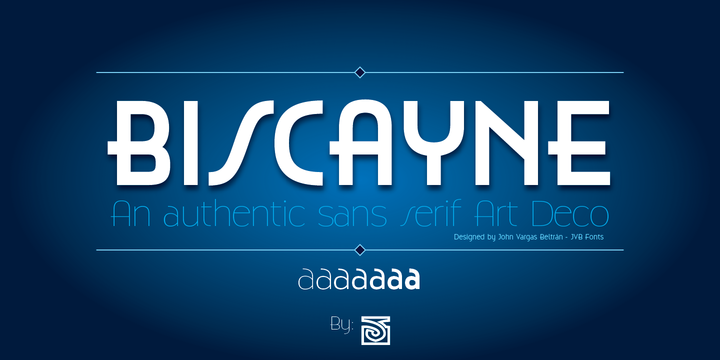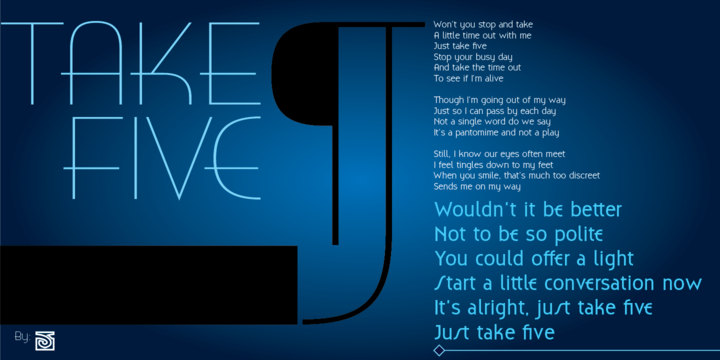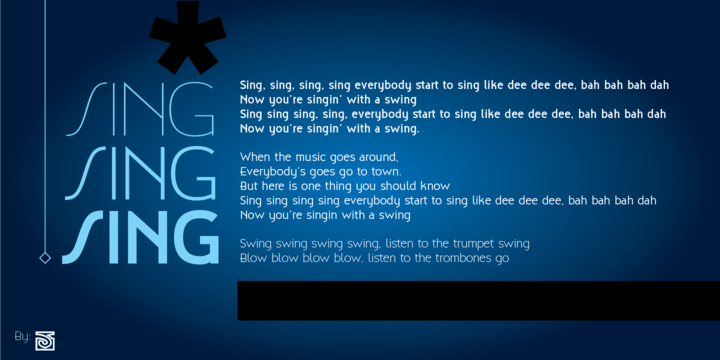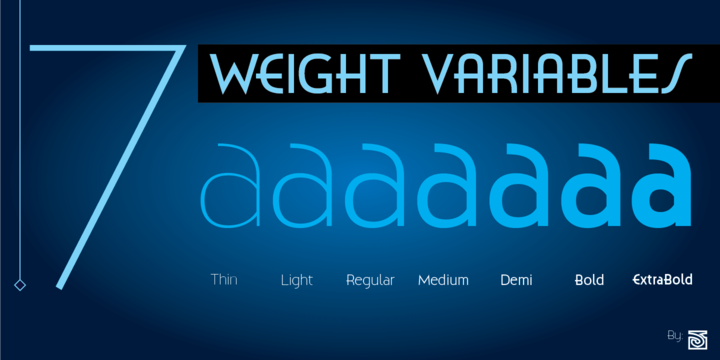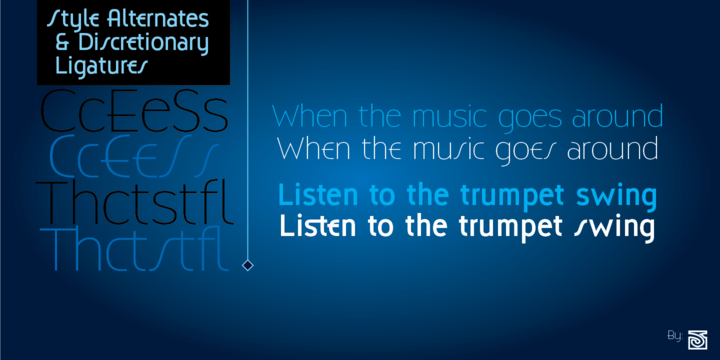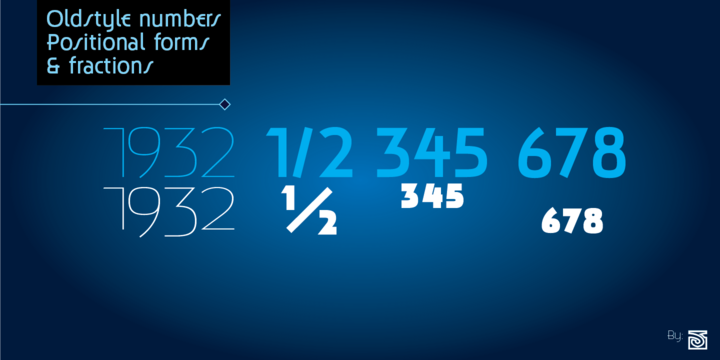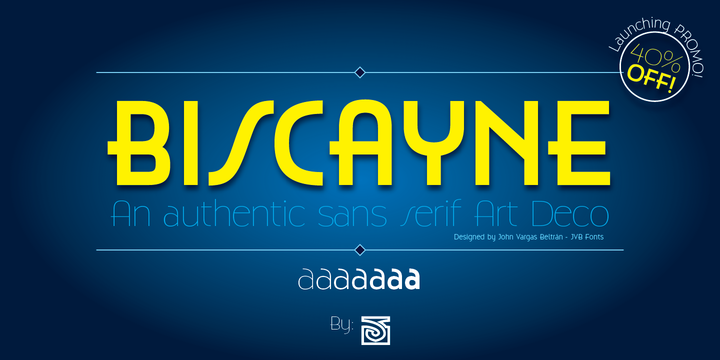
Biscayne Font Family
Biscayne is inspired by the old and classic Art Deco art and architecture found in some building ads from the 1930’s in the Art Deco District of Miami. The name of the font family is one of the most emblematic and representative places in Miami City.
Biscayne can be used mainly in titles, display and short texts. This typeface family supports East Europe languages. It also includes standard and discretionary ligatures, alternative style of uppercase, fractions, numerators and denominators, end and/or terminal forms and other OpenType features.